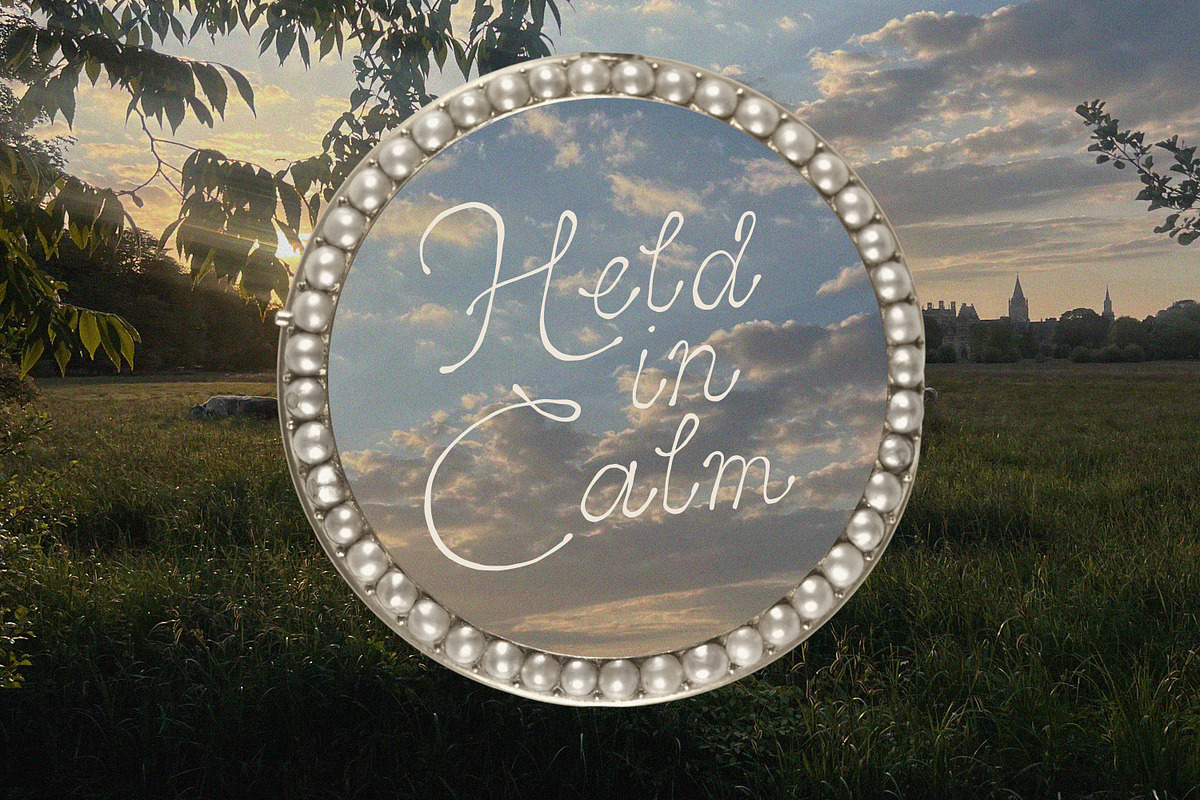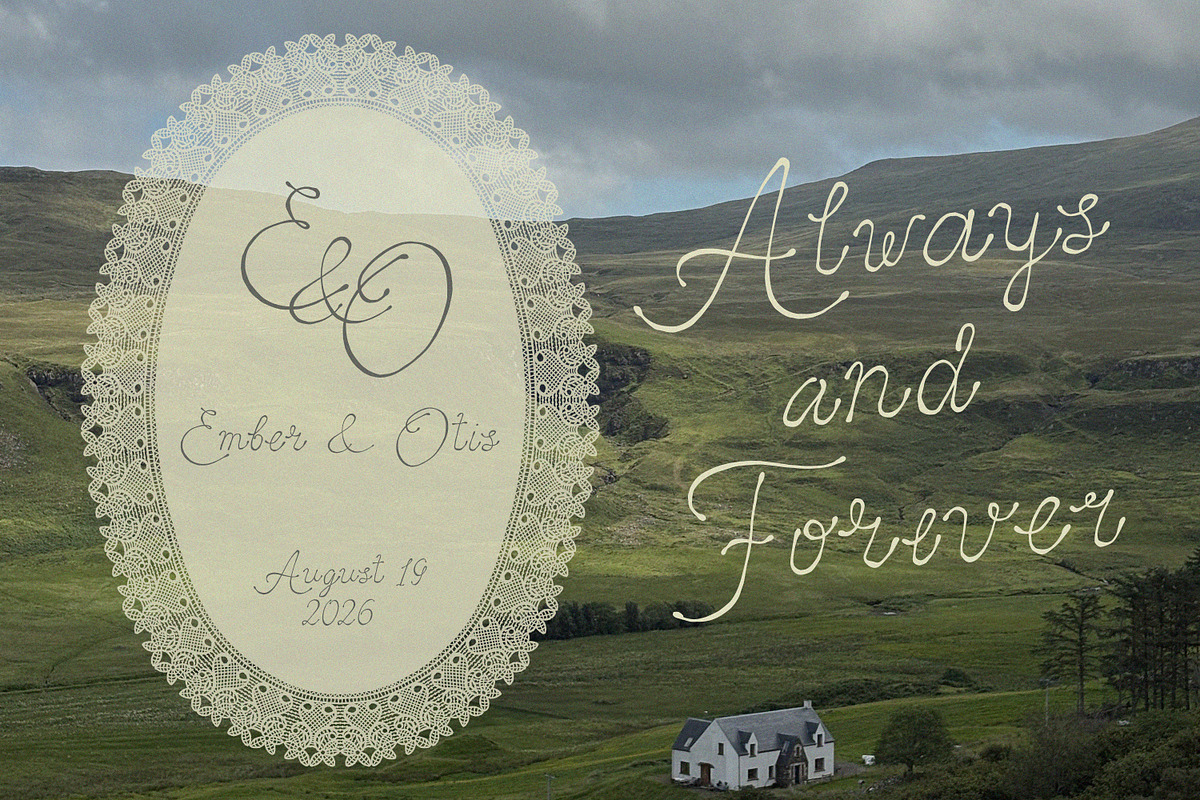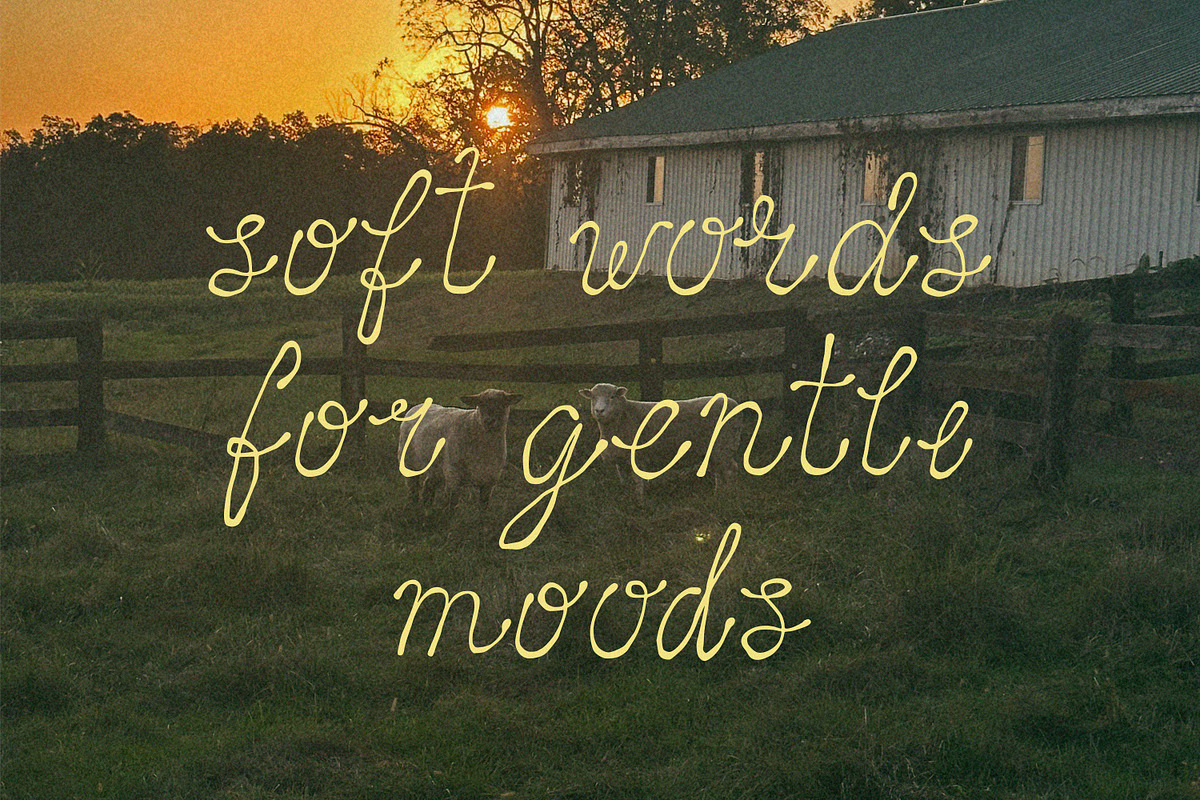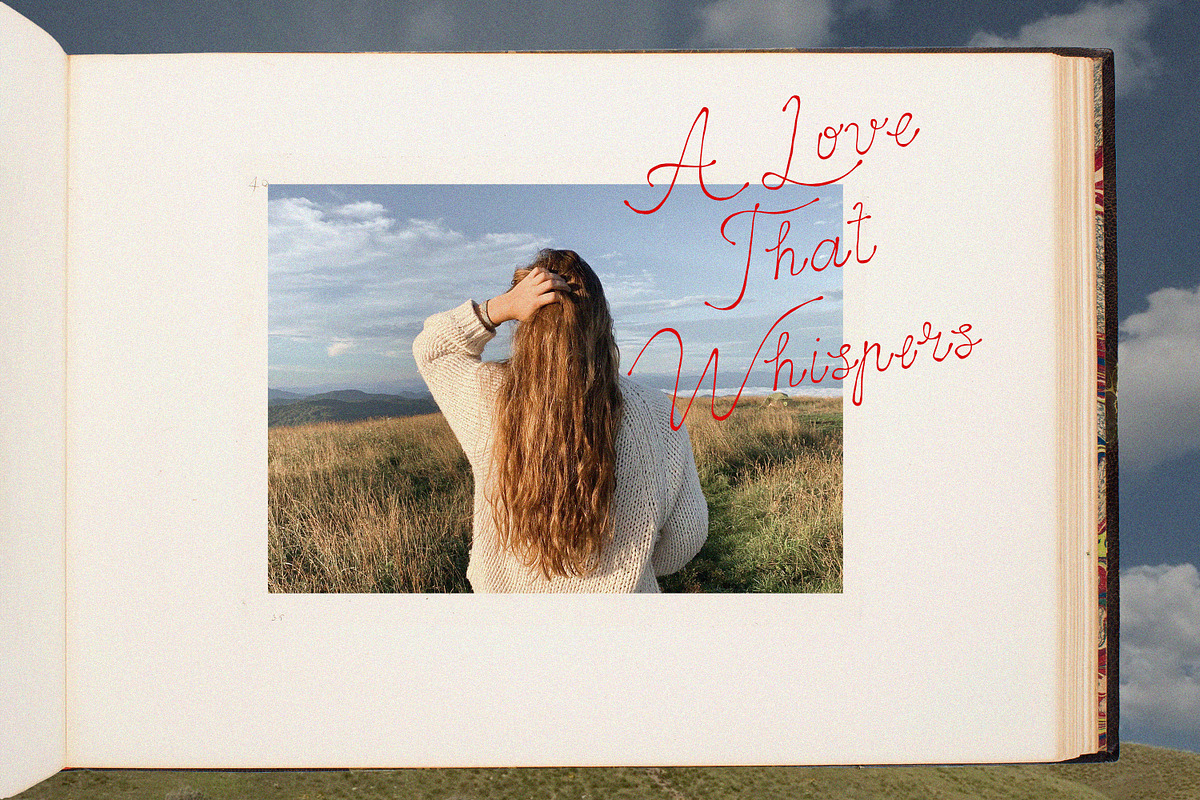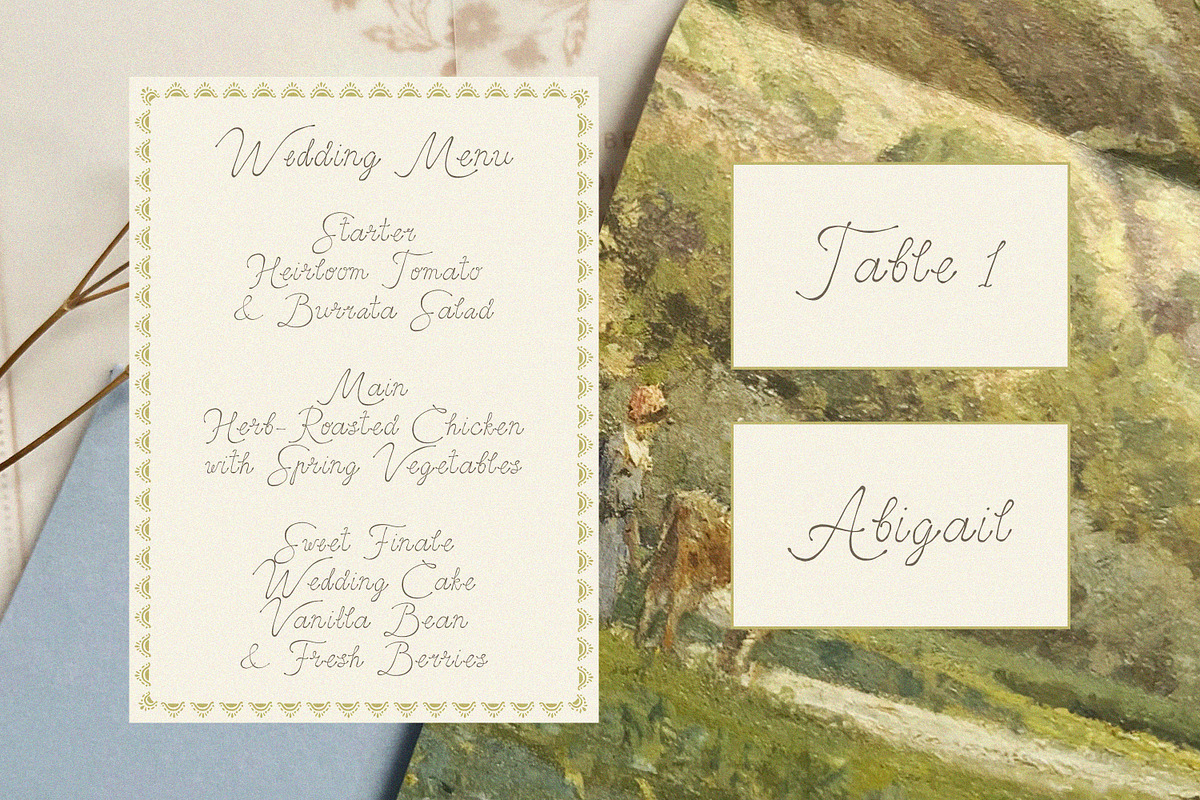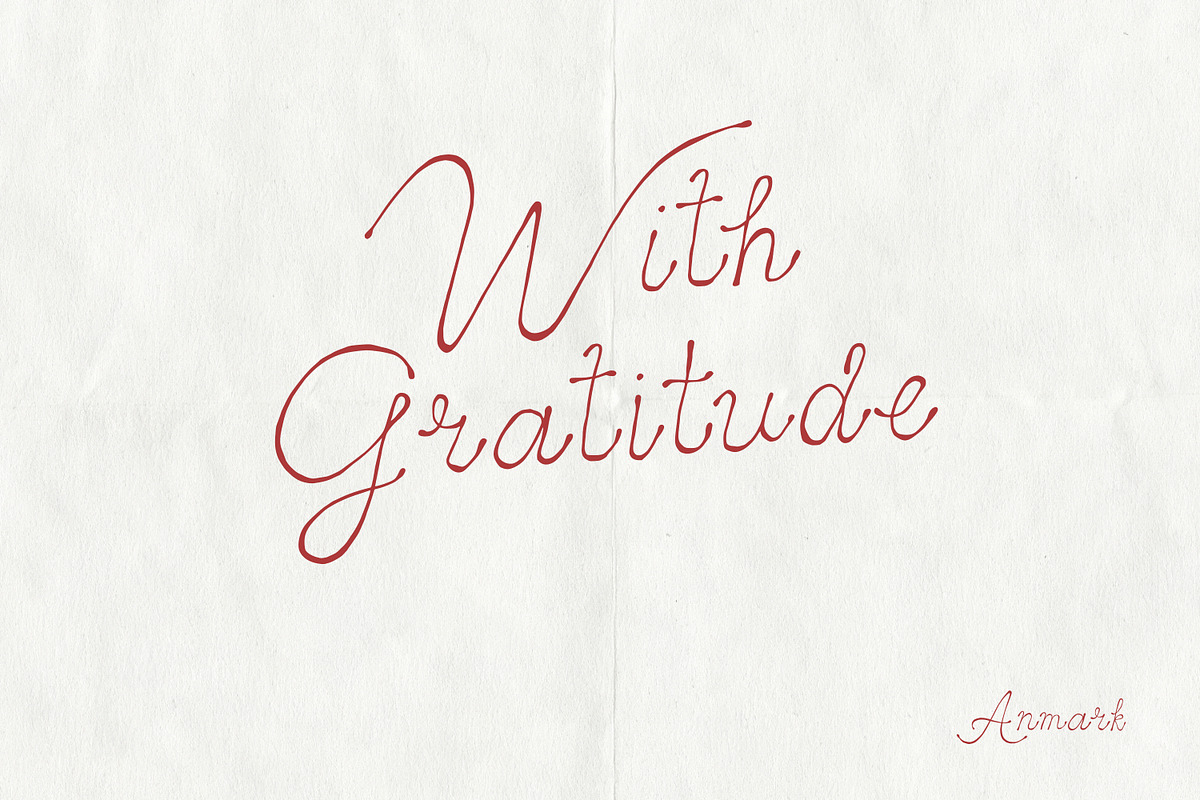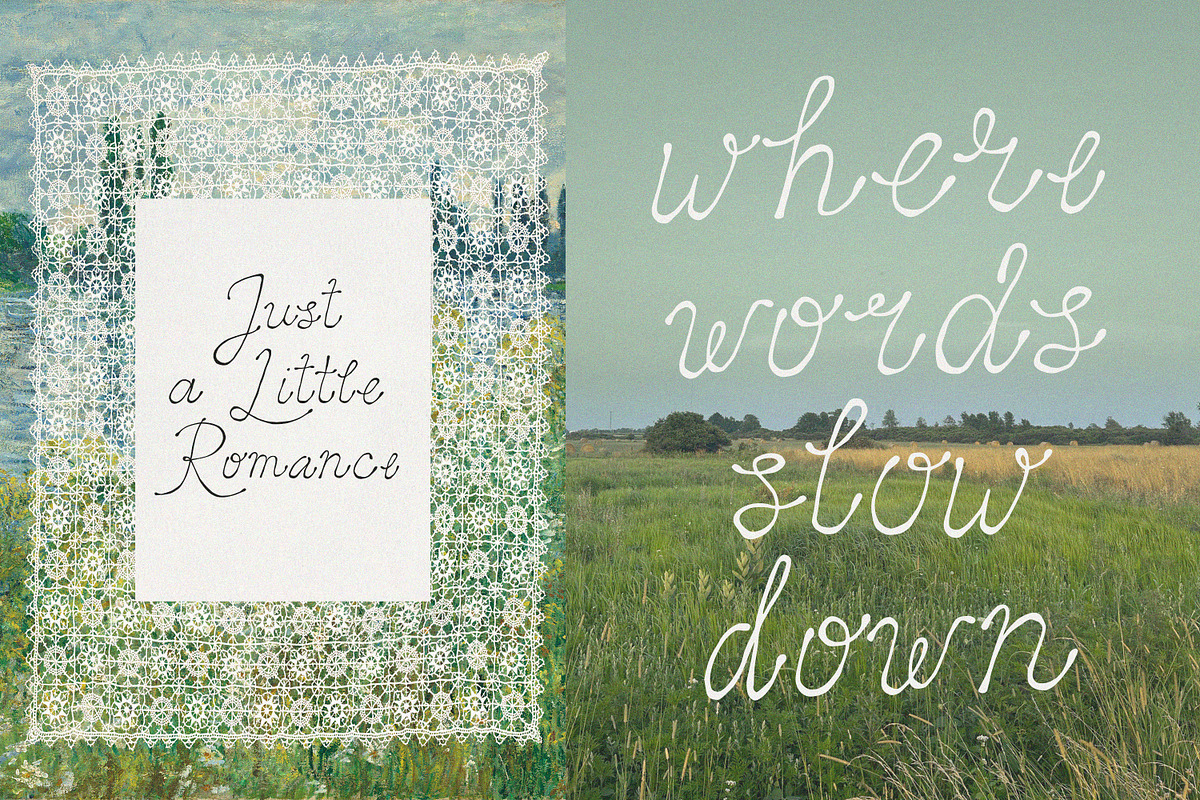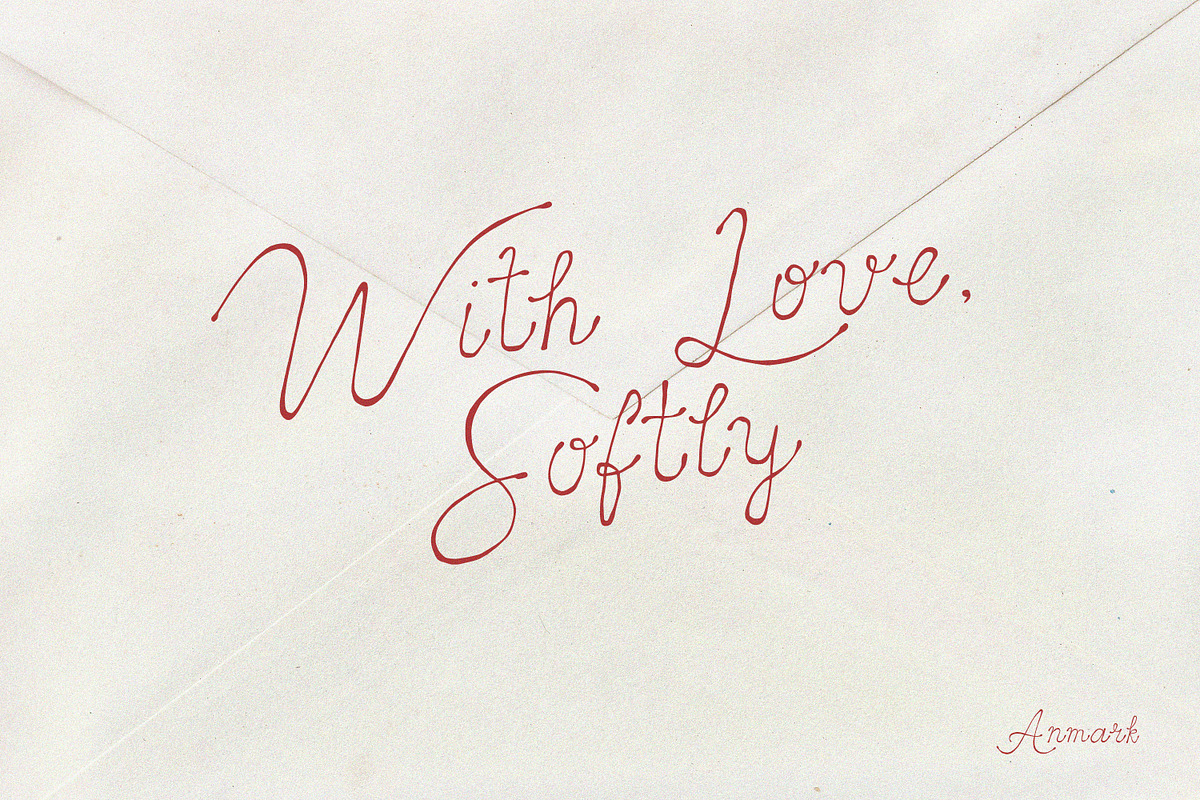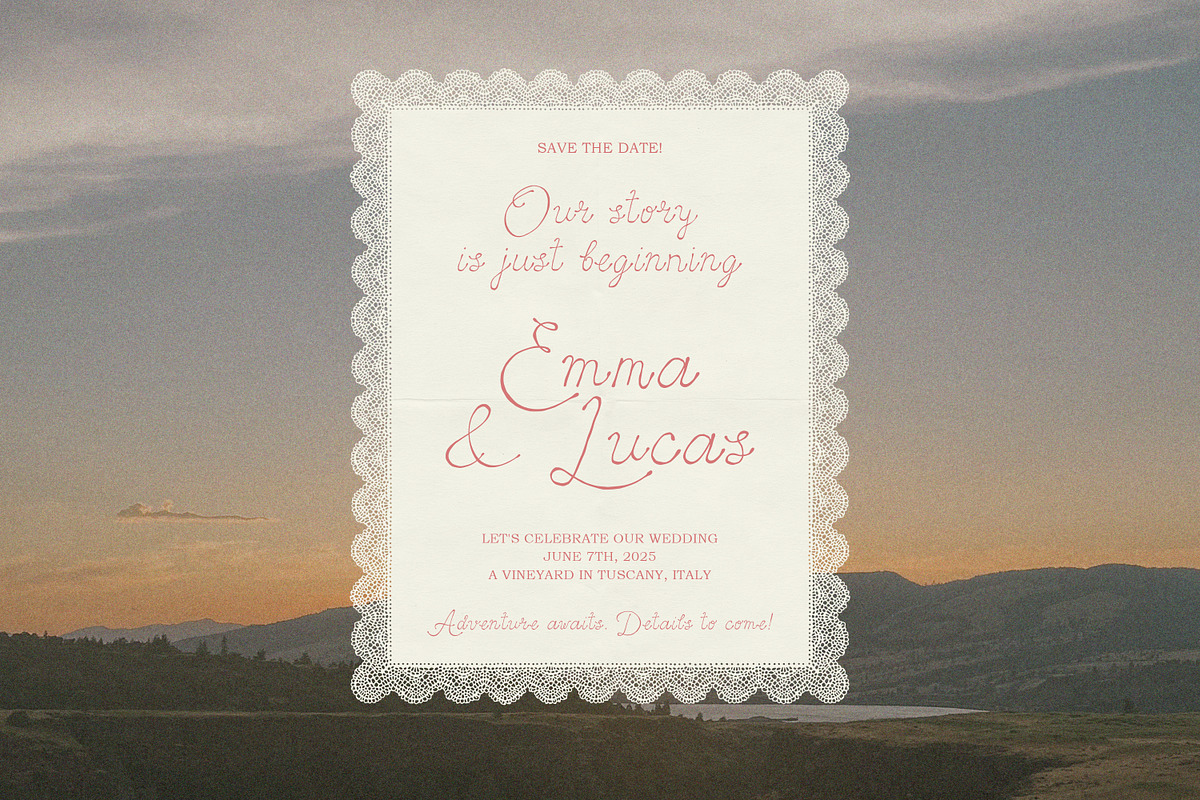
The Quietude Poetic Romantic Script
The Quietude is a romantic handwritten script with a soft, feminine feel and a subtle vintage-inspired character. Inspired by intimate letters, gentle emotions, and poetcore aesthetics, this font feels calm, expressive, and deeply personal.
Its flowing letterforms and delicate details echo a quiet vintage romance, making The Quietude perfect for modern wedding stationery, editorial layouts, poetic quotes, and refined branding projects.
The font includes a full set of lowercase alternates, allowing you to create subtle variations and a natural handwritten rhythm, while keeping uppercase characters clean and elegant.
Wedding invitations & stationery
Vow books and love letters
Editorial design & magazine quotes
Poetry, journaling, and book projects
Romantic branding & boutique logos
Social media graphics & Pinterest visuals
Romantic handwritten script
Soft, feminine, vintage-inspired aesthetic
Full set of lowercase alternates
Clean and elegant uppercase characters